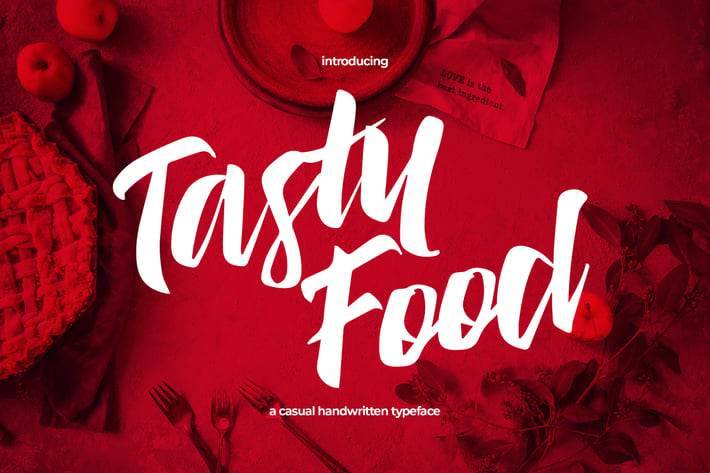
Tasty Food - Casual Handwritten Typeface
Tasty Food is a casual Typeface with natural brush stroke, comes with uppercase, lowercase, numerals, and punctuation. This font will be perfect pick for various designs & artworks like social media post, brand type, posters, merchandise, packaging, headlines, merchandises, t-shirt, and many more..
Uppercase Letters
Lowercase alternative Letters
Numbers and Punctuation